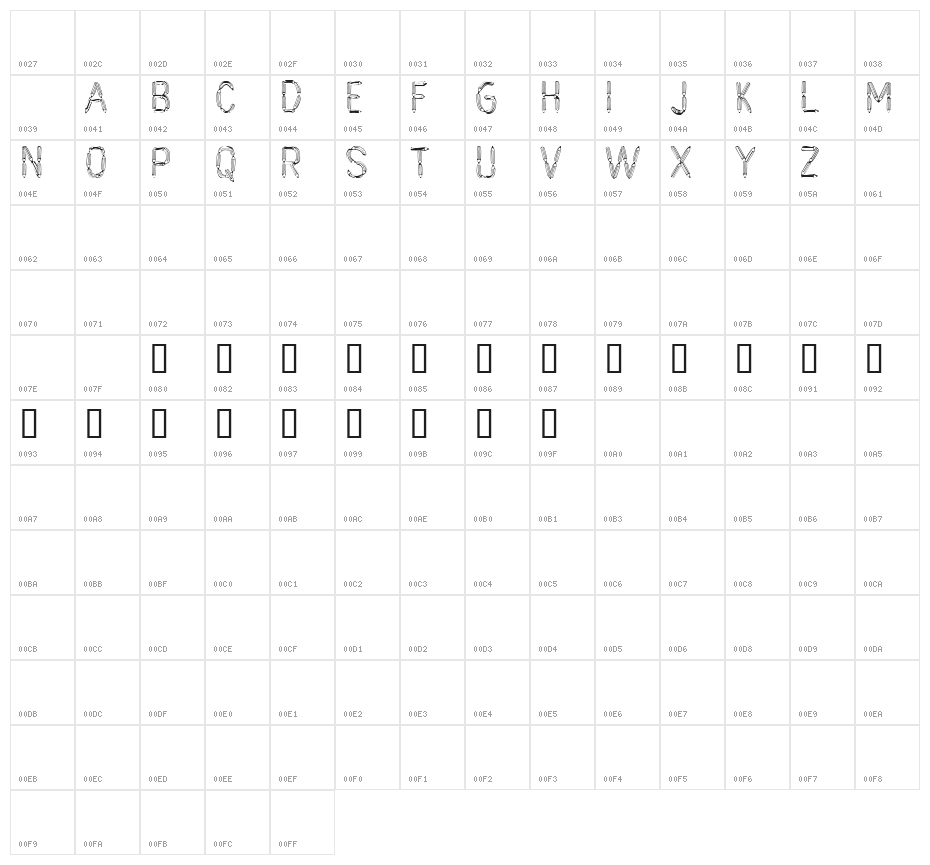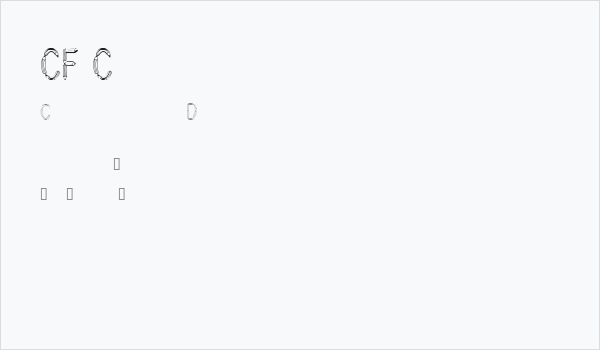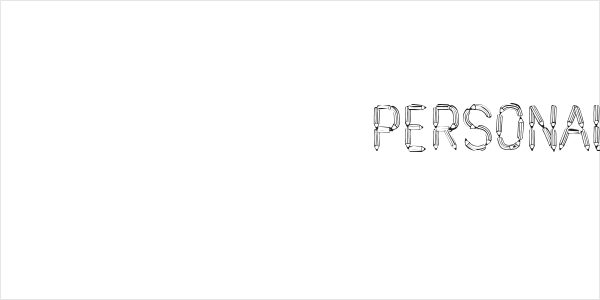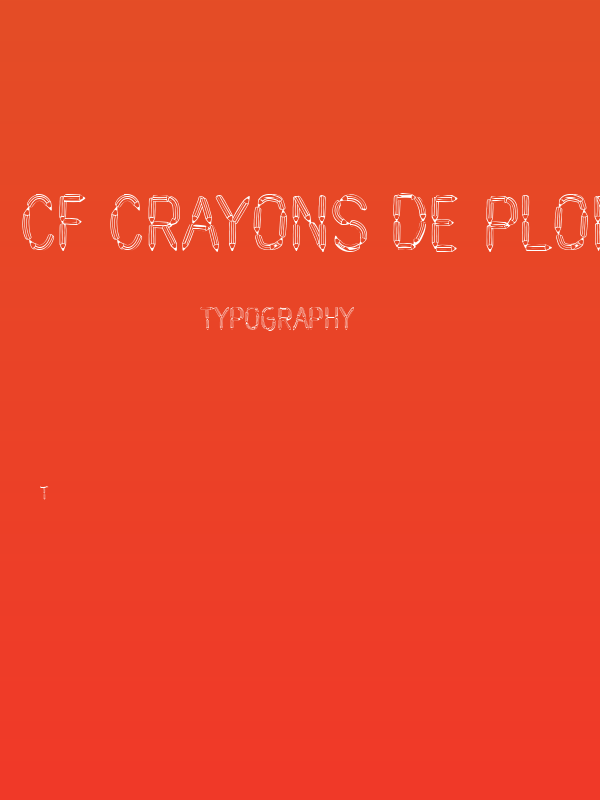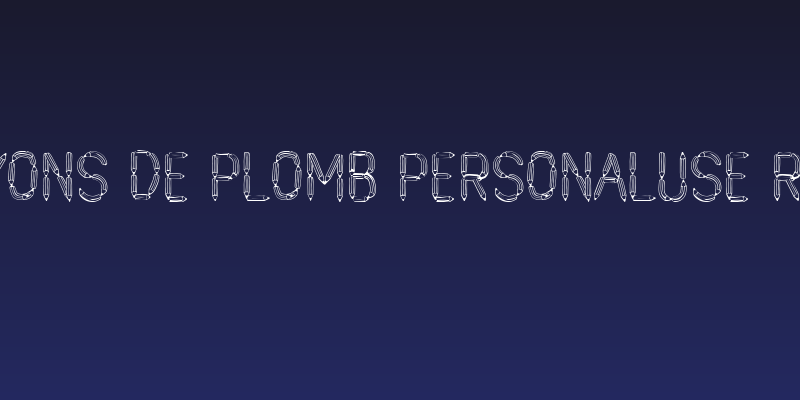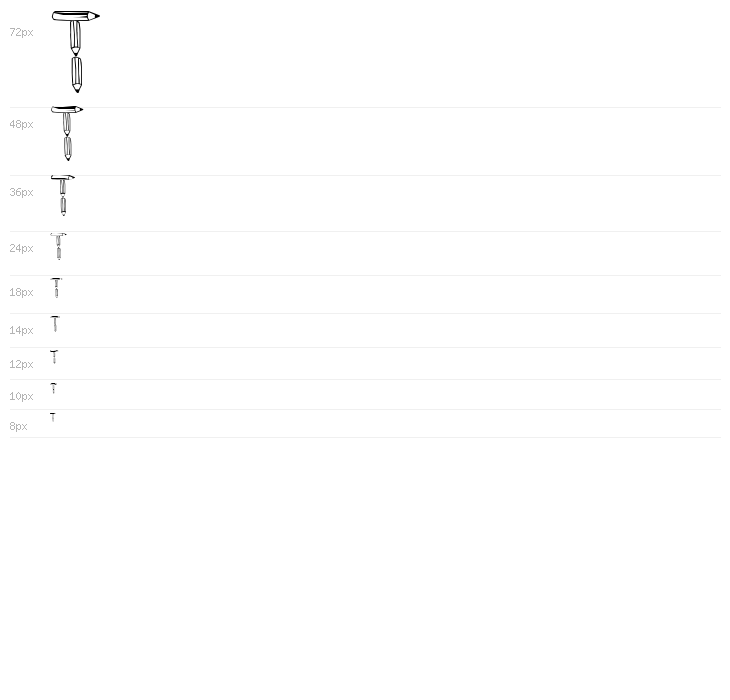
CF Crayons de plomb PERSONALUSE Regular Font
CF Crayons de plomb PERSONALUSE Regular Description
This font features a unique and playful design, where each character is crafted to resemble a pencil. The letters are composed of multiple pencil-like segments, creating a three-dimensional effect. The style is highly decorative, making it ideal for creative and artistic projects. The uppercase letters are prominently displayed, with each character maintaining a consistent structure that emphasizes the pencil motif. The font lacks lowercase letters and numbers, focusing solely on the uppercase alphabet. The intricate design of each letter makes it stand out, offering a distinctive look that is both fun and visually engaging.
| Proposed Projects | Ideal for educational materials, children's book covers, art-themed posters, and creative branding. |